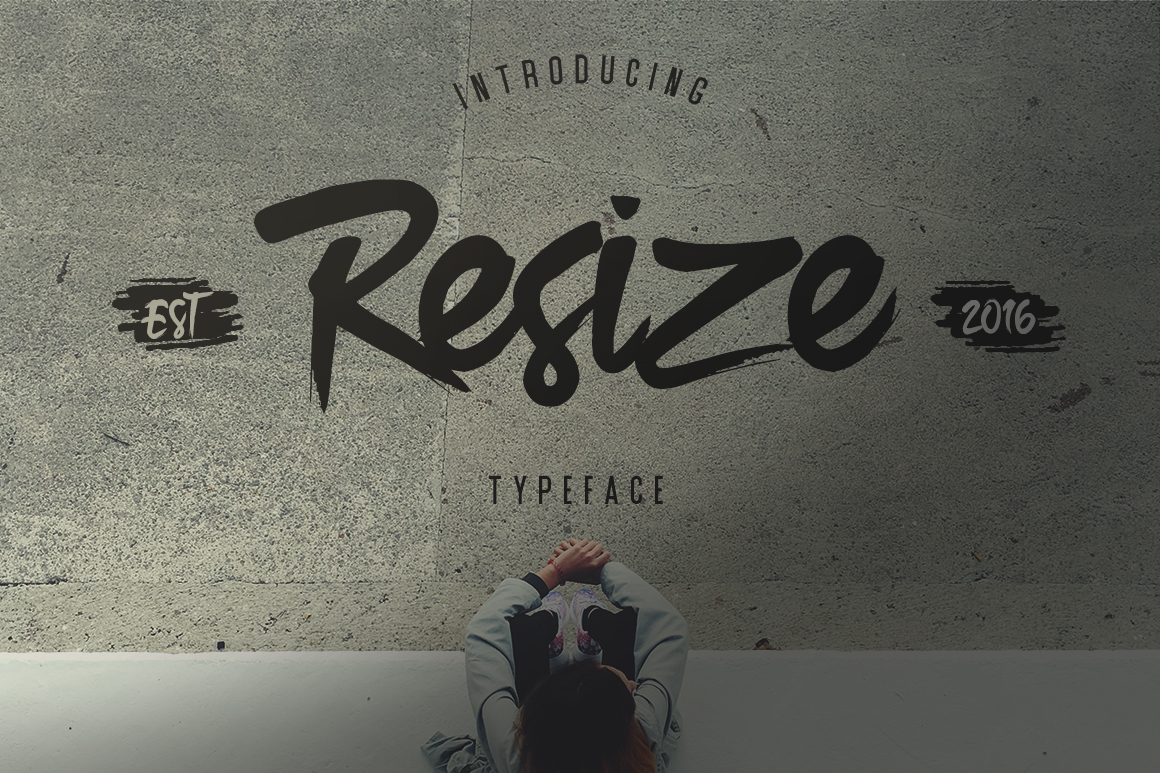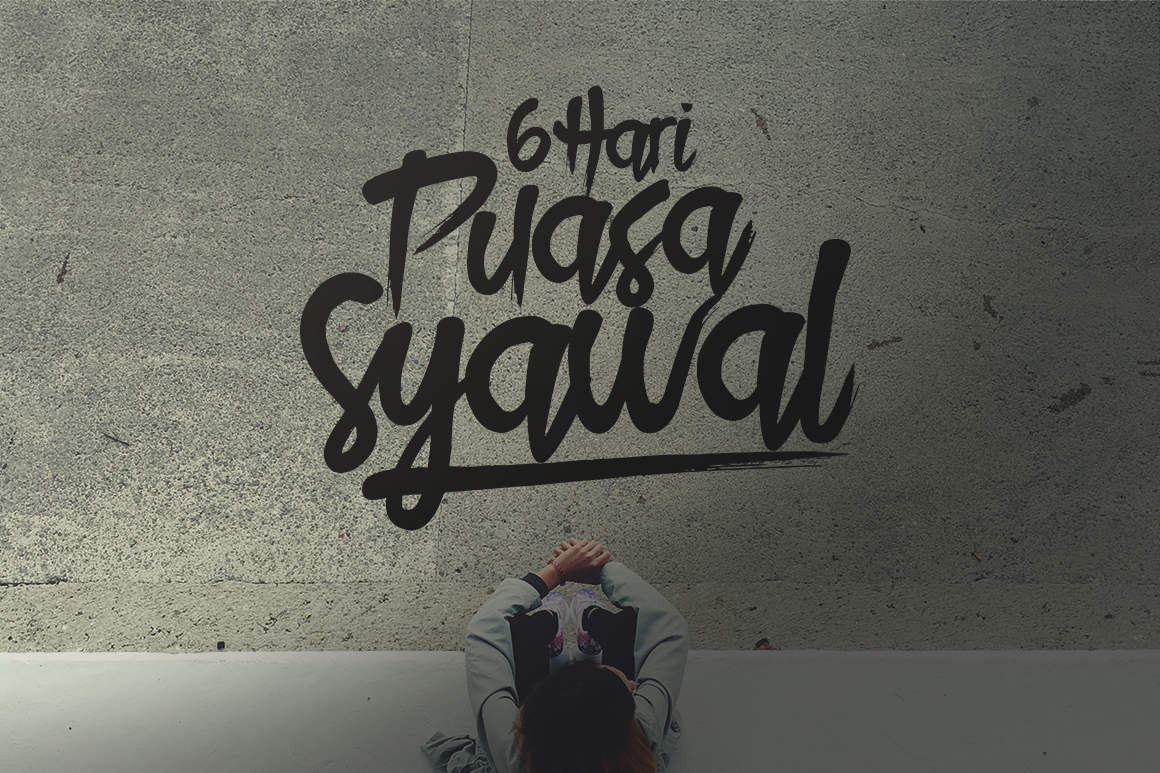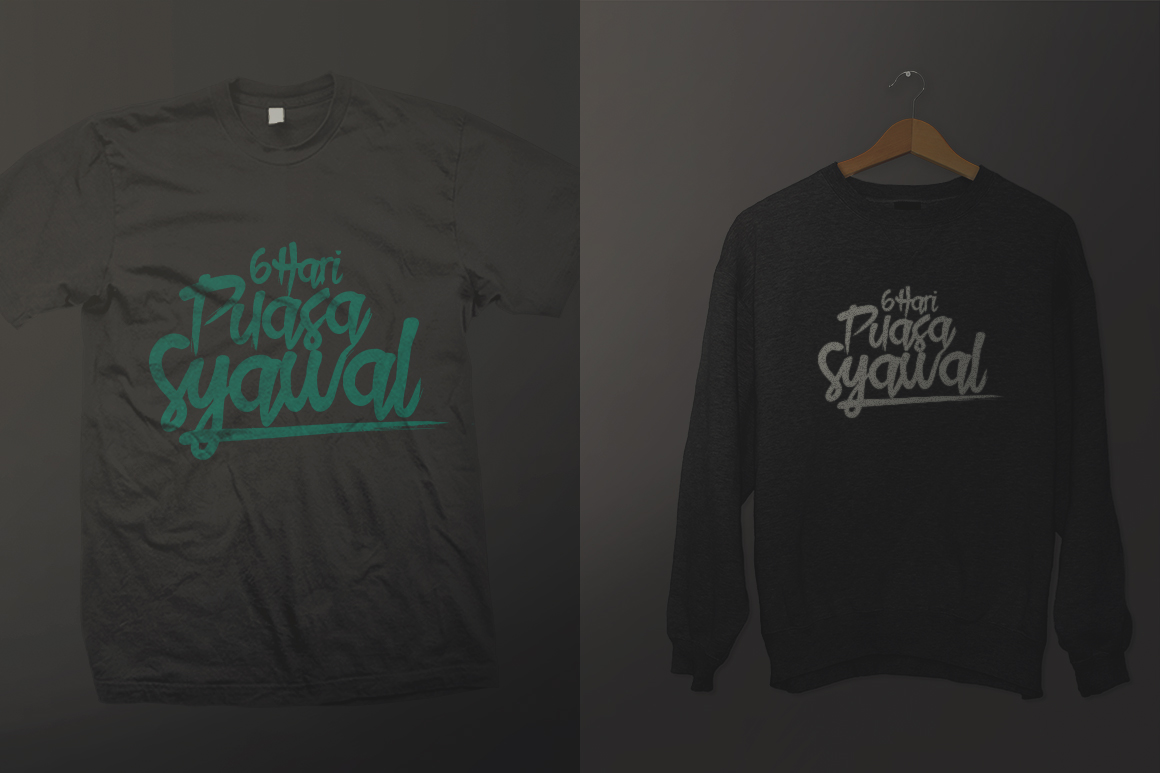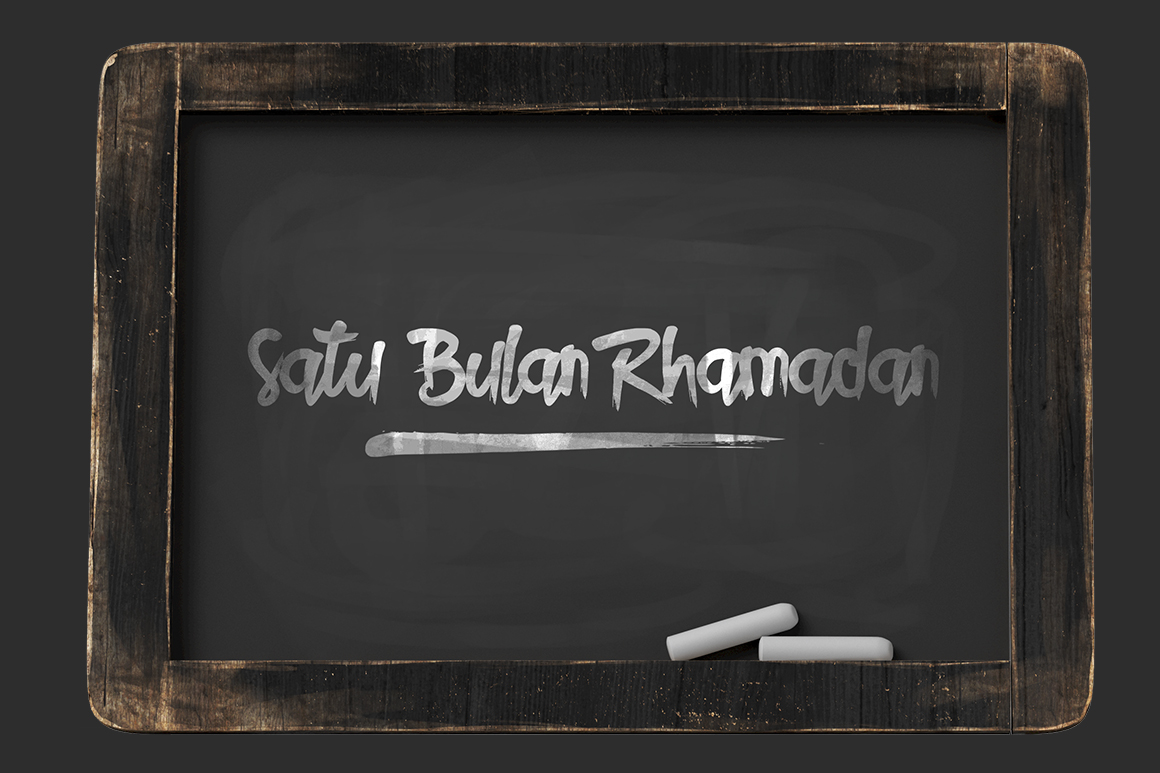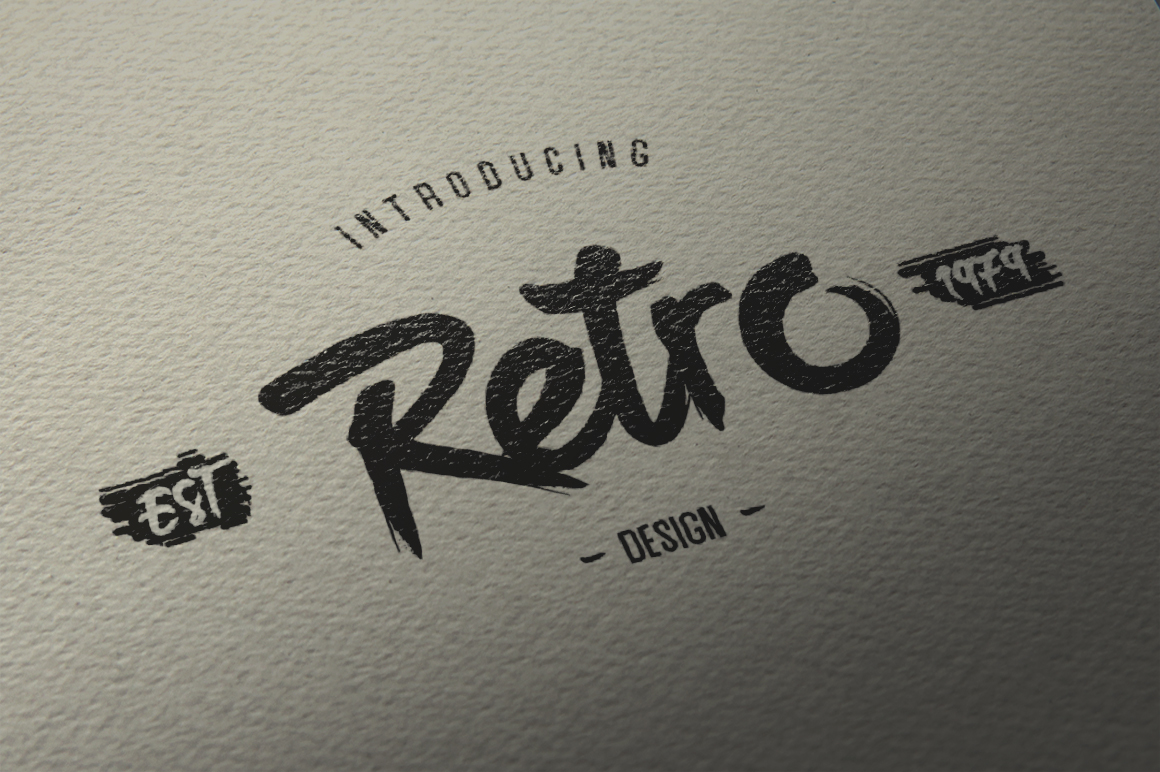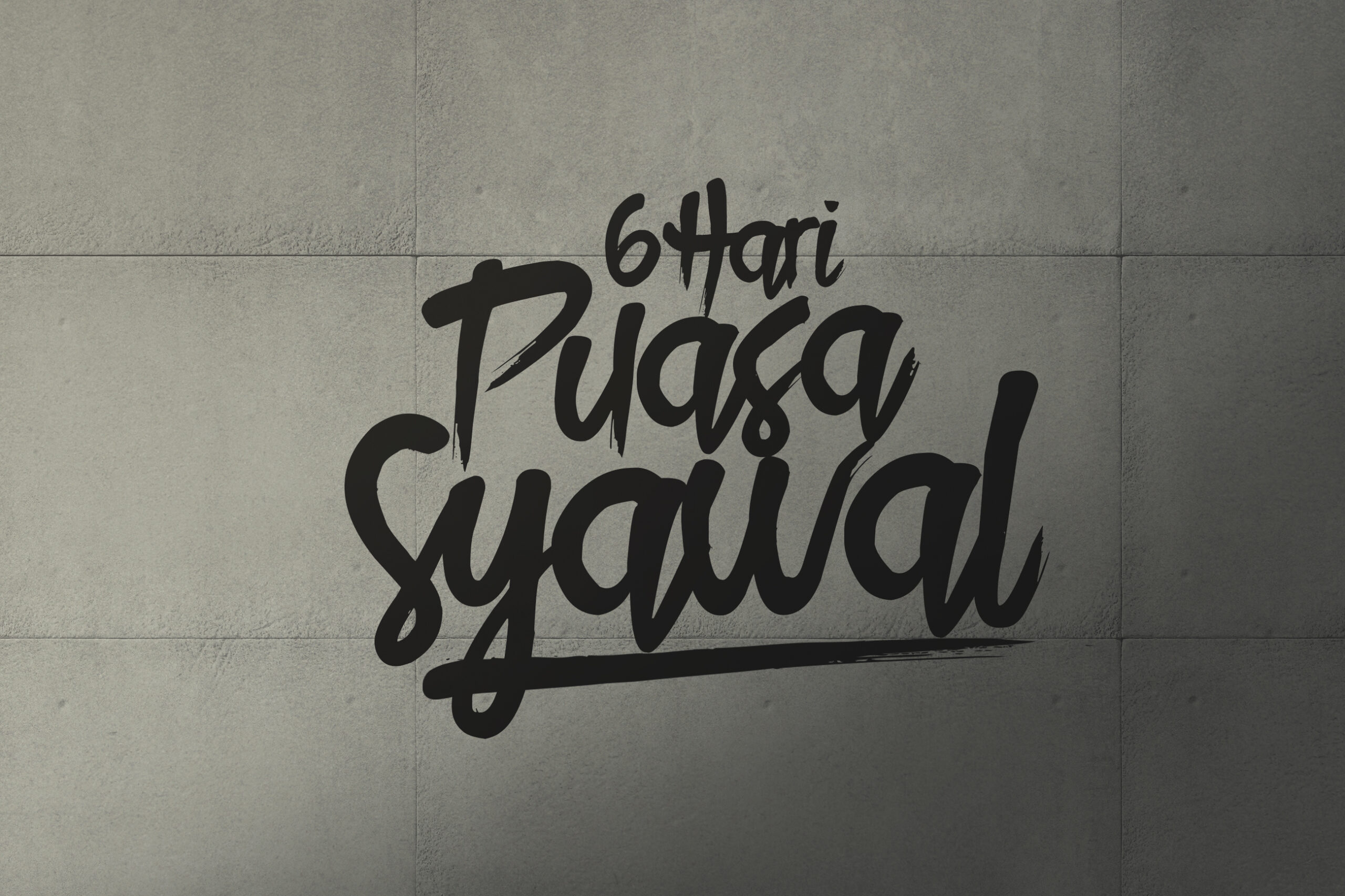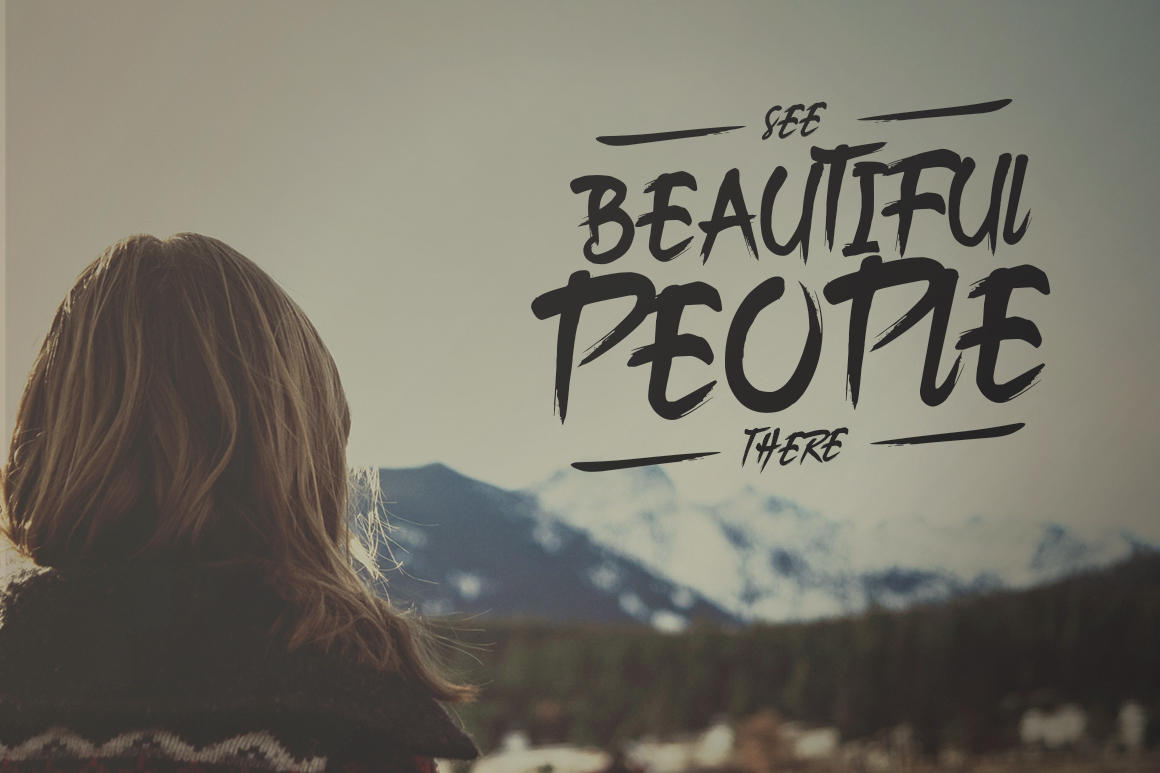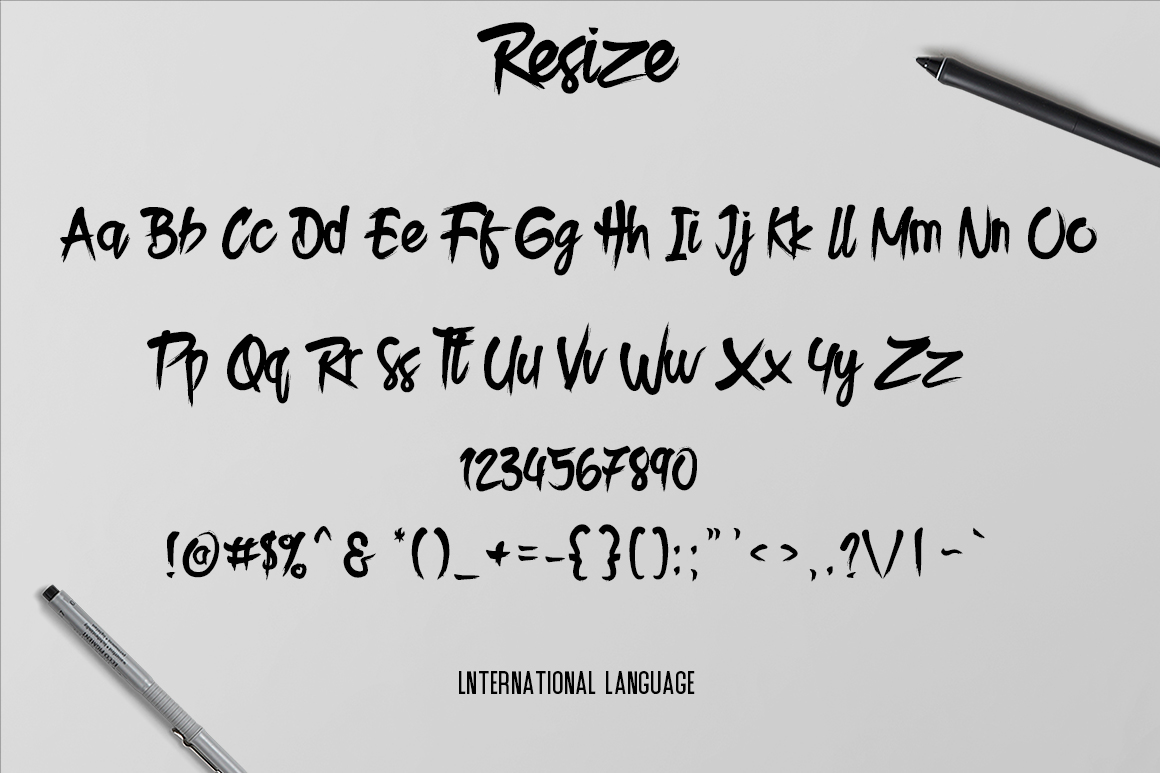
Resize Font
About Resize Font
Resize is a gorgeous yet laid back brush stroke font with a subtle nod to vintage style; this font is suitable for a wide range of works and looks most appealing in alternative designs.